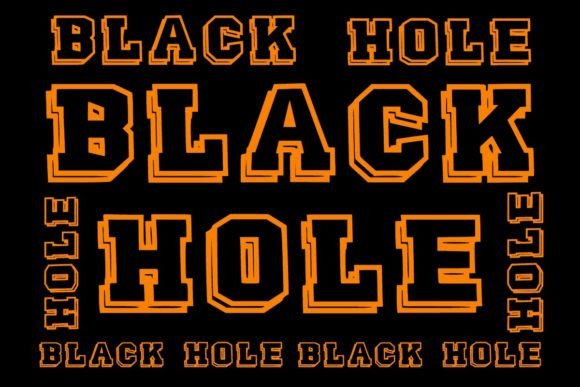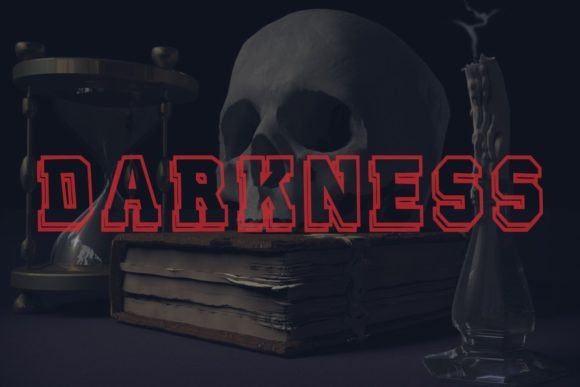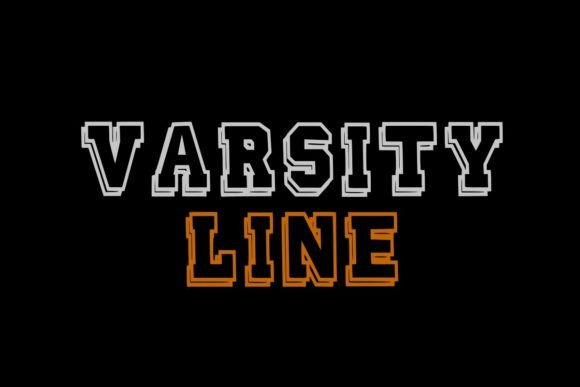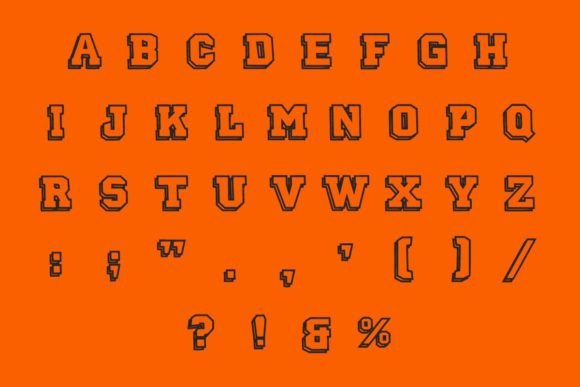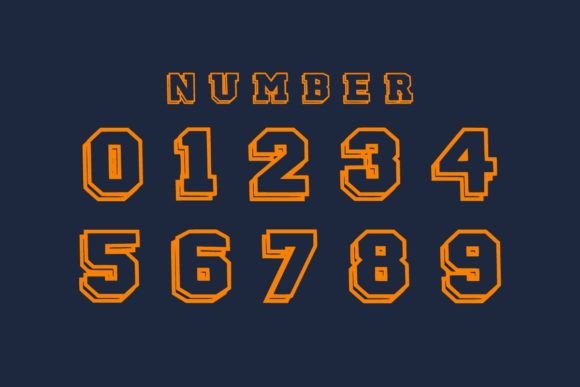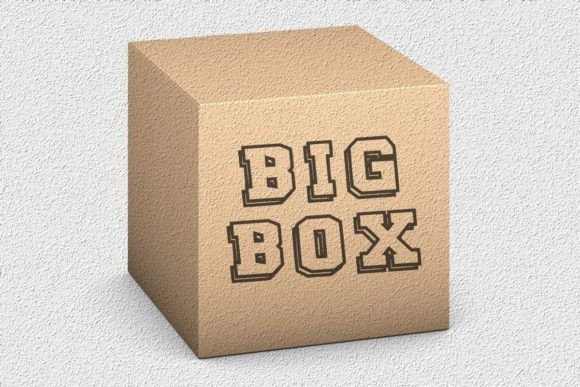
Introduction to Hellboy Font
HELLBOY is a Line Font modern, outline display font.
It is suitable for any winter and holiday branding project, product packaging, invitation, quote, t-shirt, label, poster, text effect, label, and logo that you wish to develop .